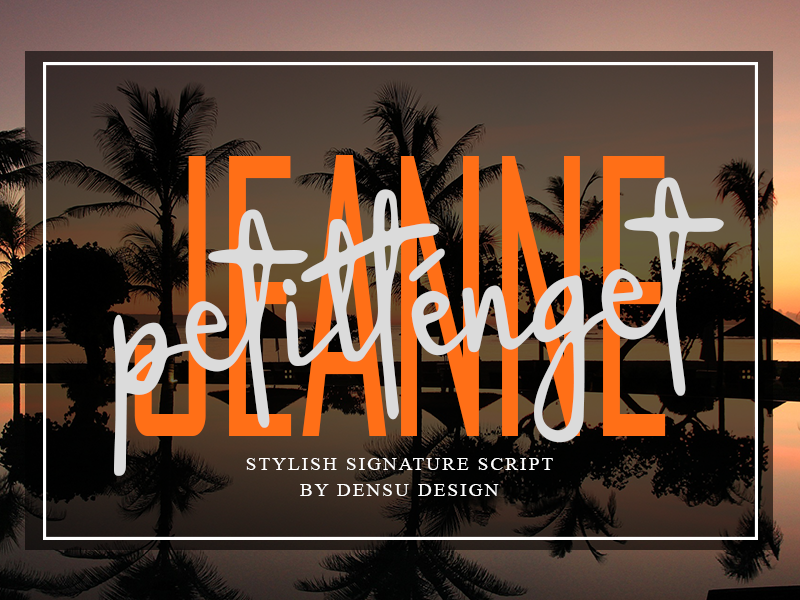
Preview and download Jeanne Petitt�nget Font. Created by Denny Sutanto in Script Handwritten styles with Free for personal use license.
Jeanne Petitt�nget is a Modern Signature Font make this Font looks Beautiful, Minimalist, and Natural. This Font looks fabulous and suites for many Project that need sophisticated classy & Handwritting Taste, such as logos & branding, invitation, stationery, wedding designs, etc. Note of the author: NOTE: This Demo is for PERSONAL USE ONLY! But any donation are very appreciated. PayPal Account for Donations: paypal.me/dennysutanto93 link to purchase full version and commercial license: - https://www.creativefabrica.com/product/jeanne-petittenget/ref/235725/ Please visit our store for more great fonts: https://www.creativefabrica.com/designer/dennysutanto060393/ and follow my Instagram for update: https://www.instagram.com/densudesign/ Thank You #JeannePetitt�nget #font #handlettering #fonts #graphicdesign #branding #logo #logos #unique #cool #minimalist #stationery #invitation #designs #handwritten #display #link #full #make #modern #idea #script |